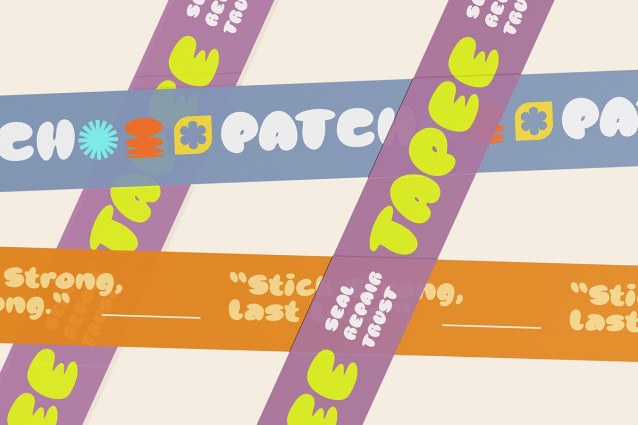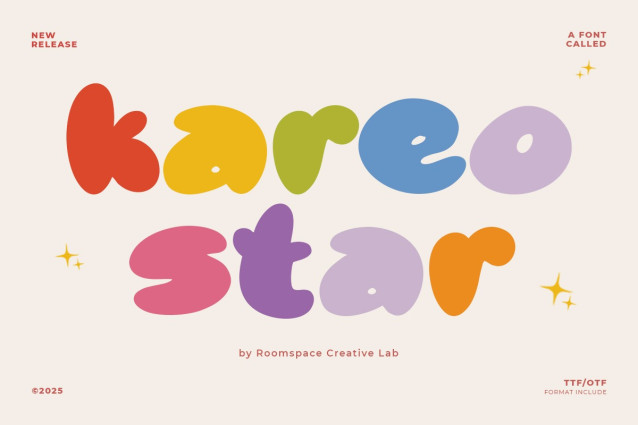
Kareo Star Font
Kareo Star Font, a fun and chubby display font designed to bring joy and character to your creative projects! This rounded and geometric font is perfect for playful branding, kids-themed designs, colorful headlines, logos, posters, and more. Whether you’re working on a baby shower invitation, educational content, or a kawaii-themed craft project, Kareo Star will help your design shine like a star.
With soft, bold curves and whimsical letterforms, Kareo Star is easy to read yet packed with personality. The font includes unique symbols and fun ligatures to enhance your design experience.